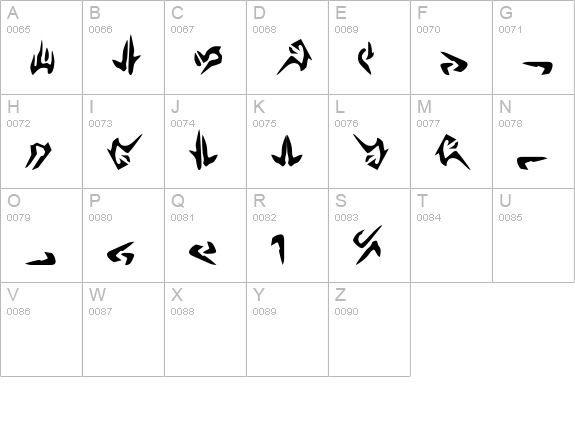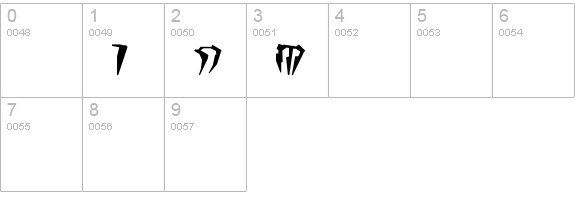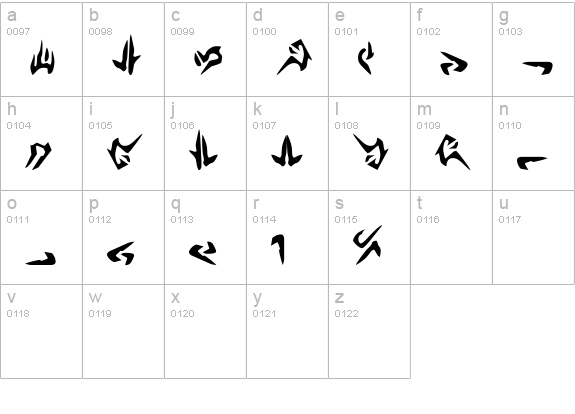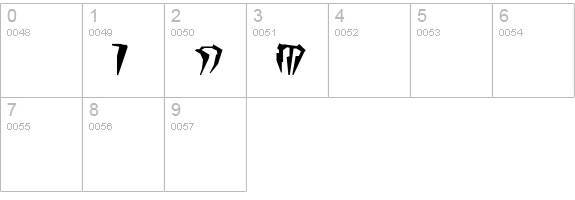
Nal-Huttese Font Details
The Nal-Huttese font is a unique and stylish typeface inspired by the written language of the Hutt species from the Star Wars universe. This font captures the exotic and mysterious feel of the Nal-Huttese language, making it perfect for adding a touch of otherworldly charm to your designs. With its intricate detailing and ornate glyphs, the Nal-Huttese font is sure to make a bold statement in any project. Best of all, the Nal-Huttese font is completely free to download at FontsMarket.com. Whether you're a fan of Star Wars looking to incorporate a piece of the galaxy far, far away into your creations, or simply seeking a striking and unconventional typeface for your design work, the Nal-Huttese font is an excellent choice. Download it today and unleash your creativity with this captivating and distinctive font.